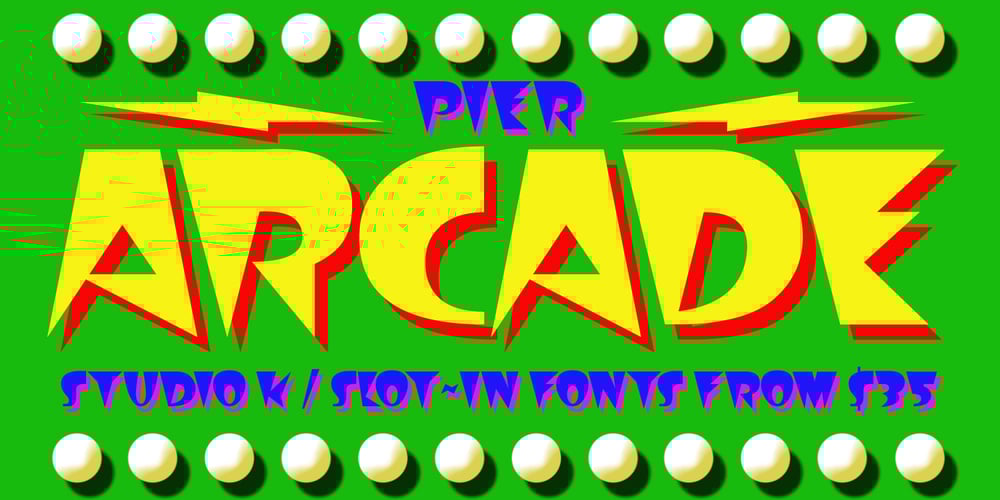
Pier Arcade Font Family was designed by Keith Tricker and published by Studio K. Pier Arcade contains 2 styles and family package options. This font is inspired by all those end-of-the-pier amusement arcades and fairground rides. It’s also a bit of a nod to comic book graphics of the Marvel era and the superheroes who deliver knockout punches in a spew of drop shadow typography. With Pier Arcade you can now create your own fairground ride or comic book adventure. Enjoy! See also my other fun fonts Bebopalula, Barrowboy and Calypso.